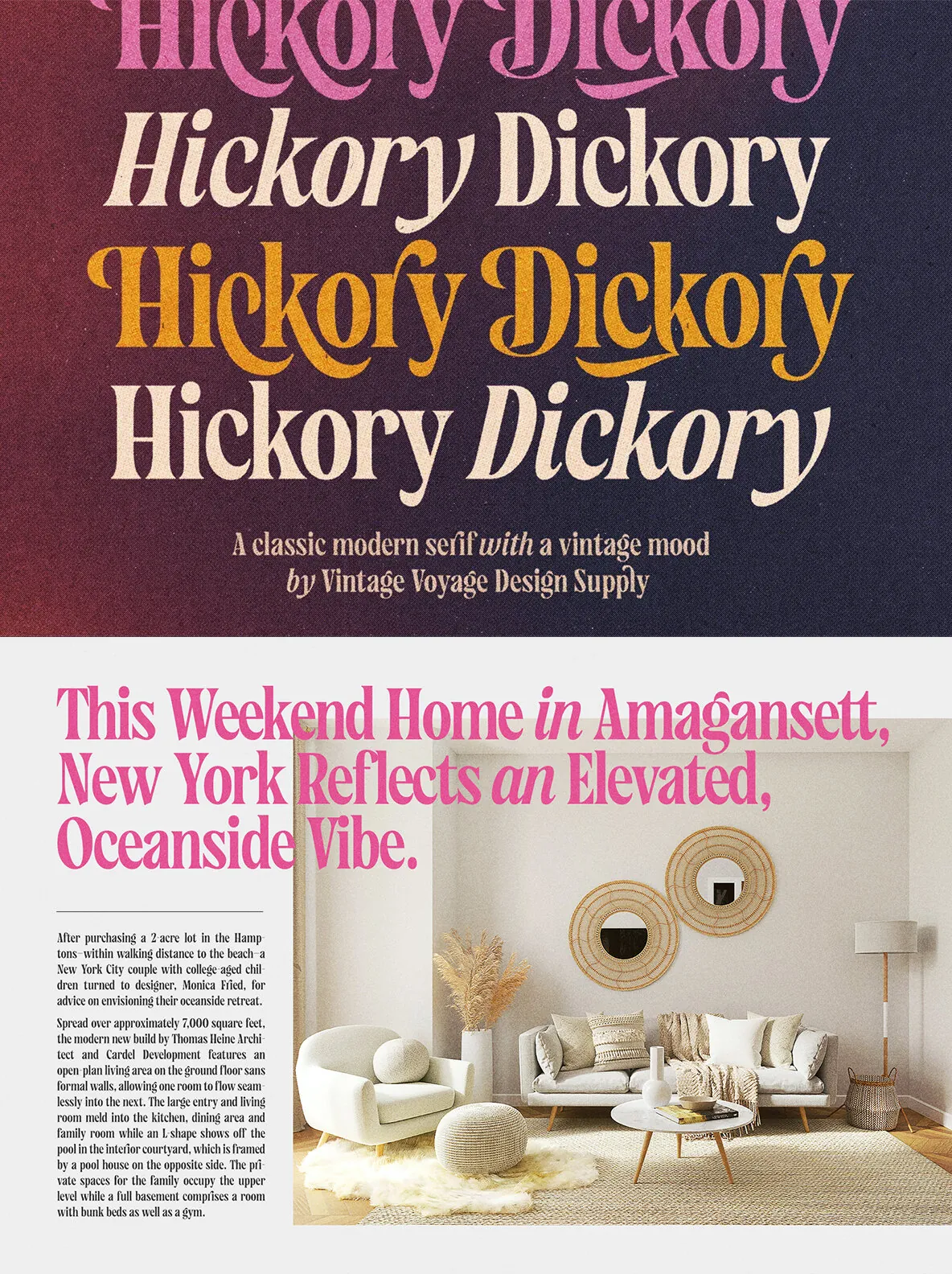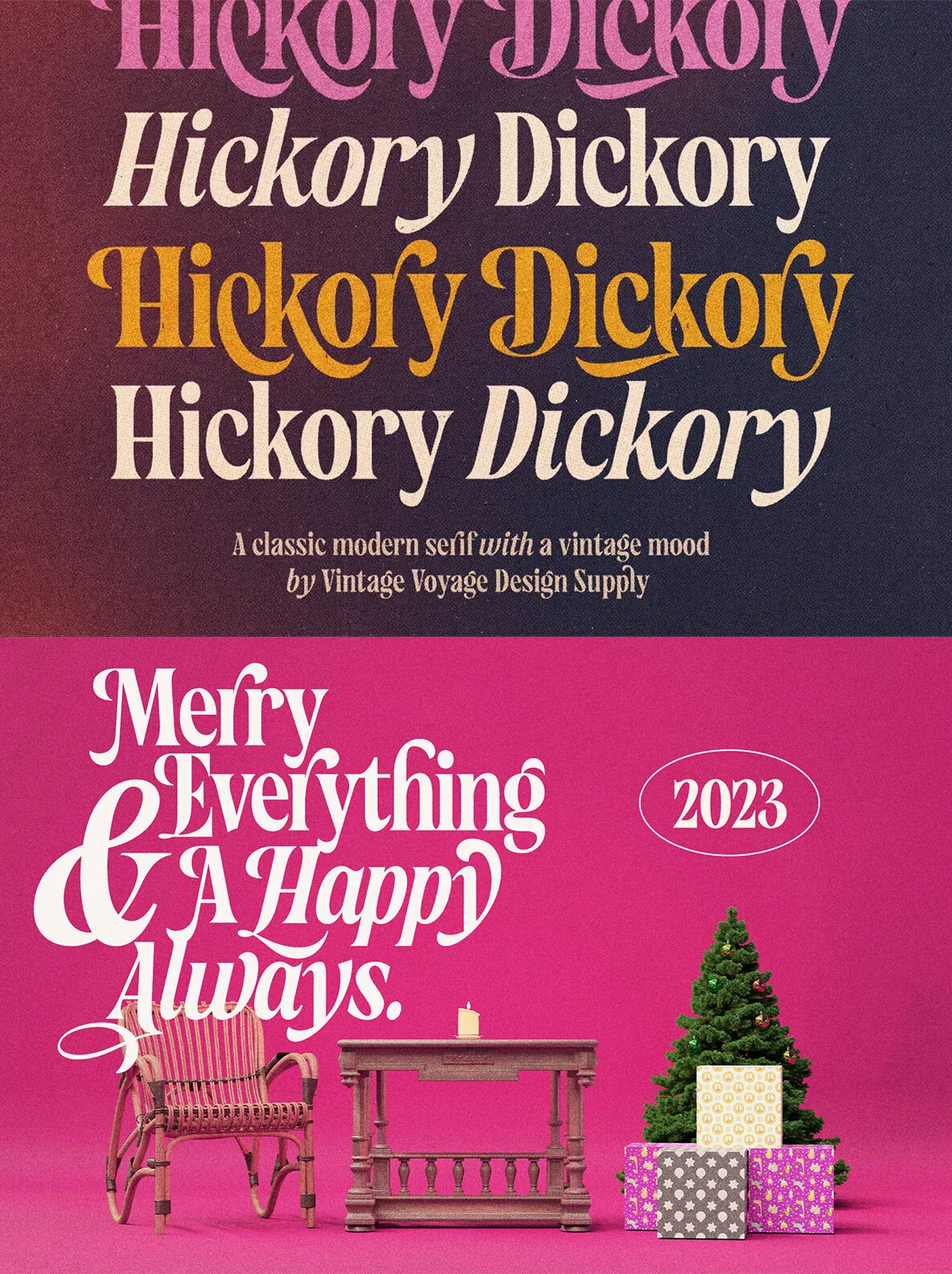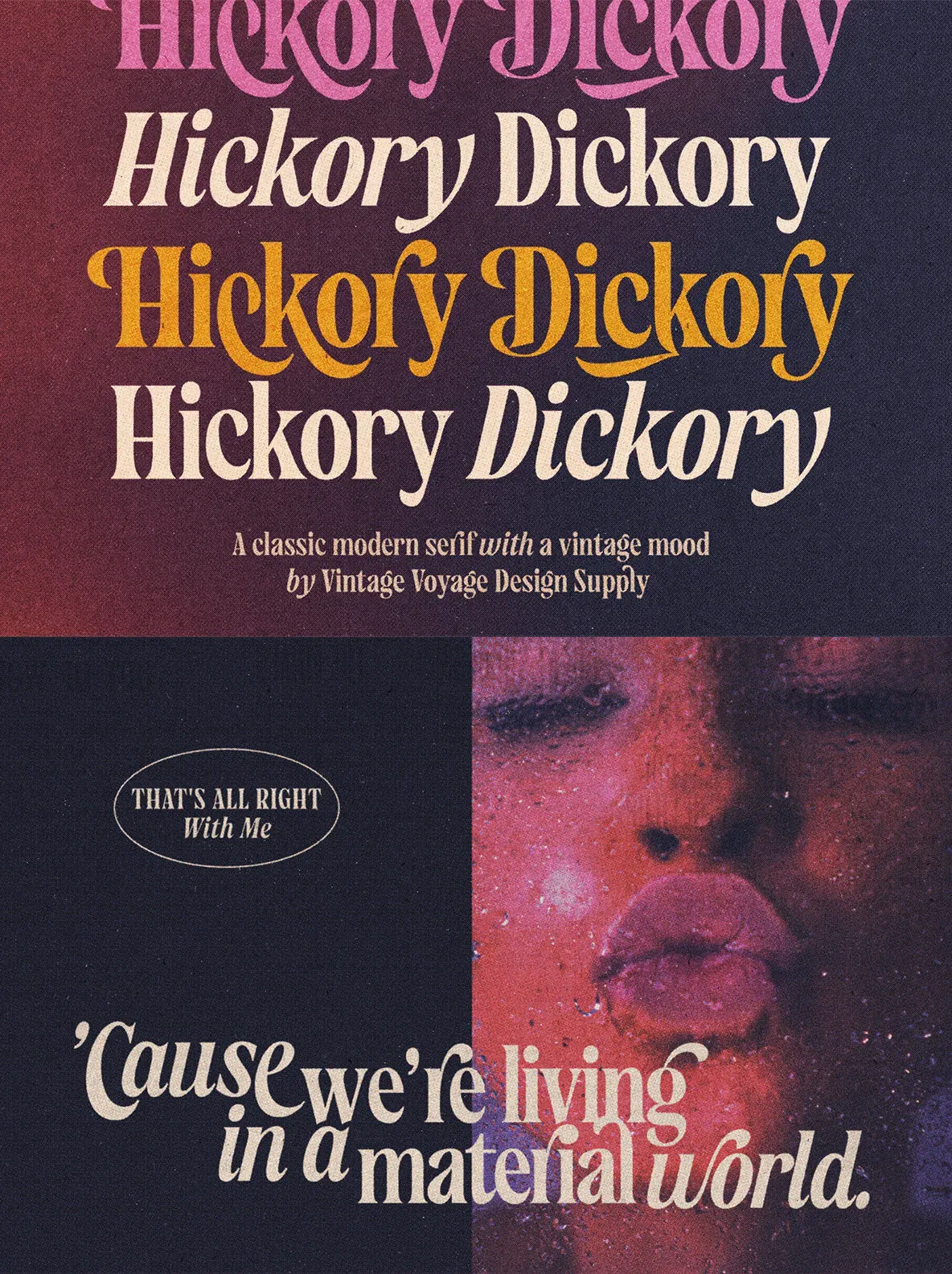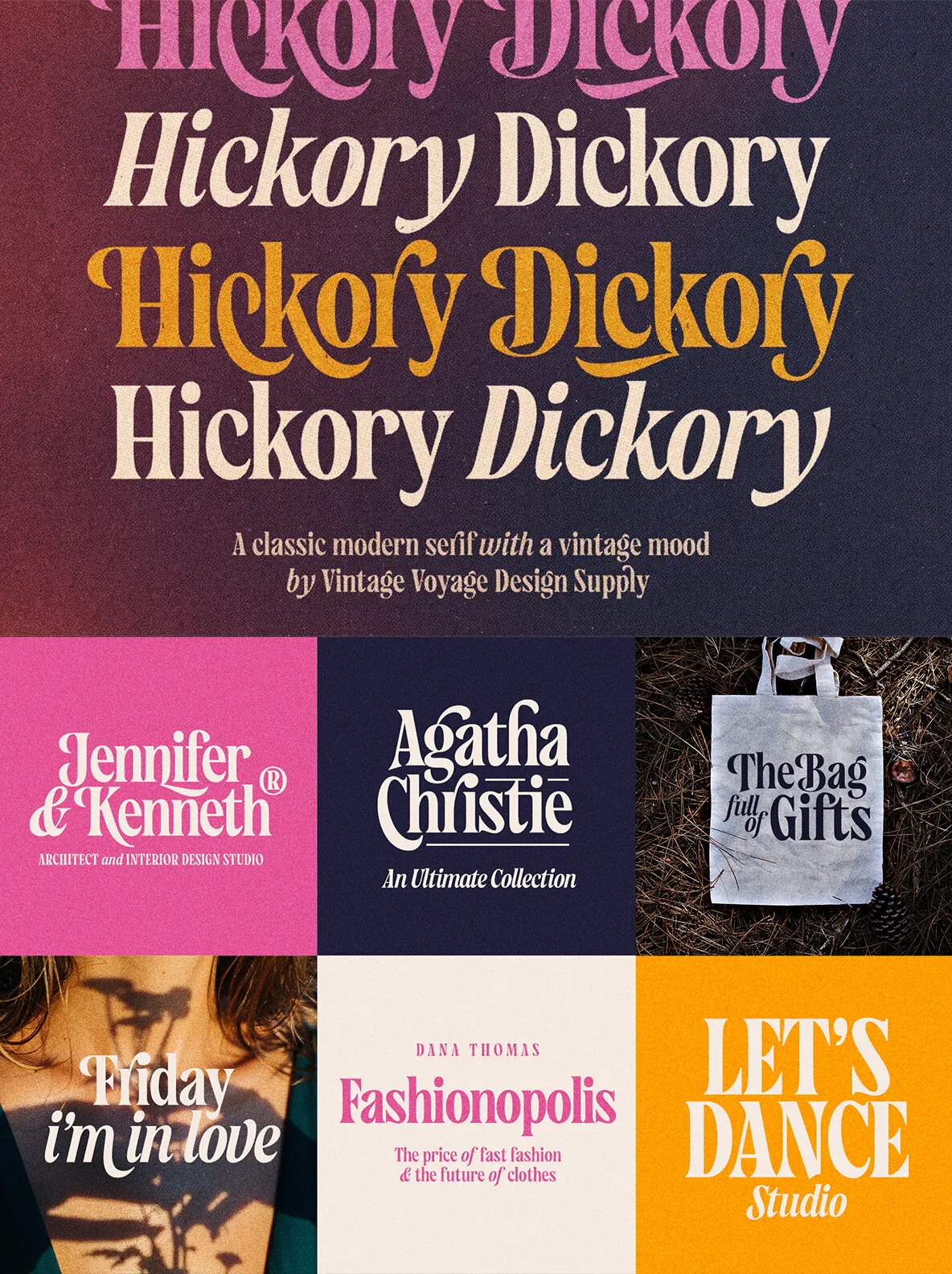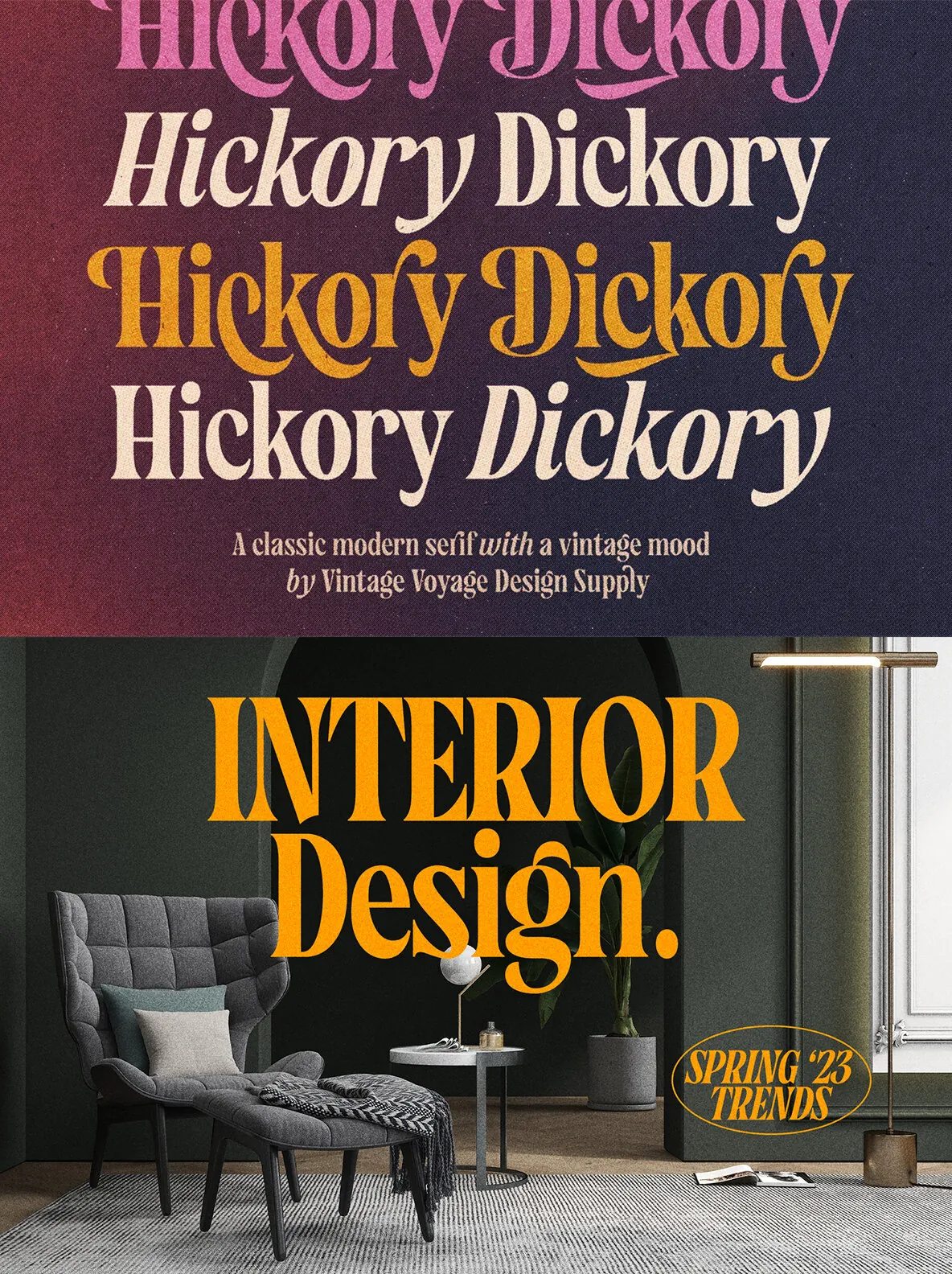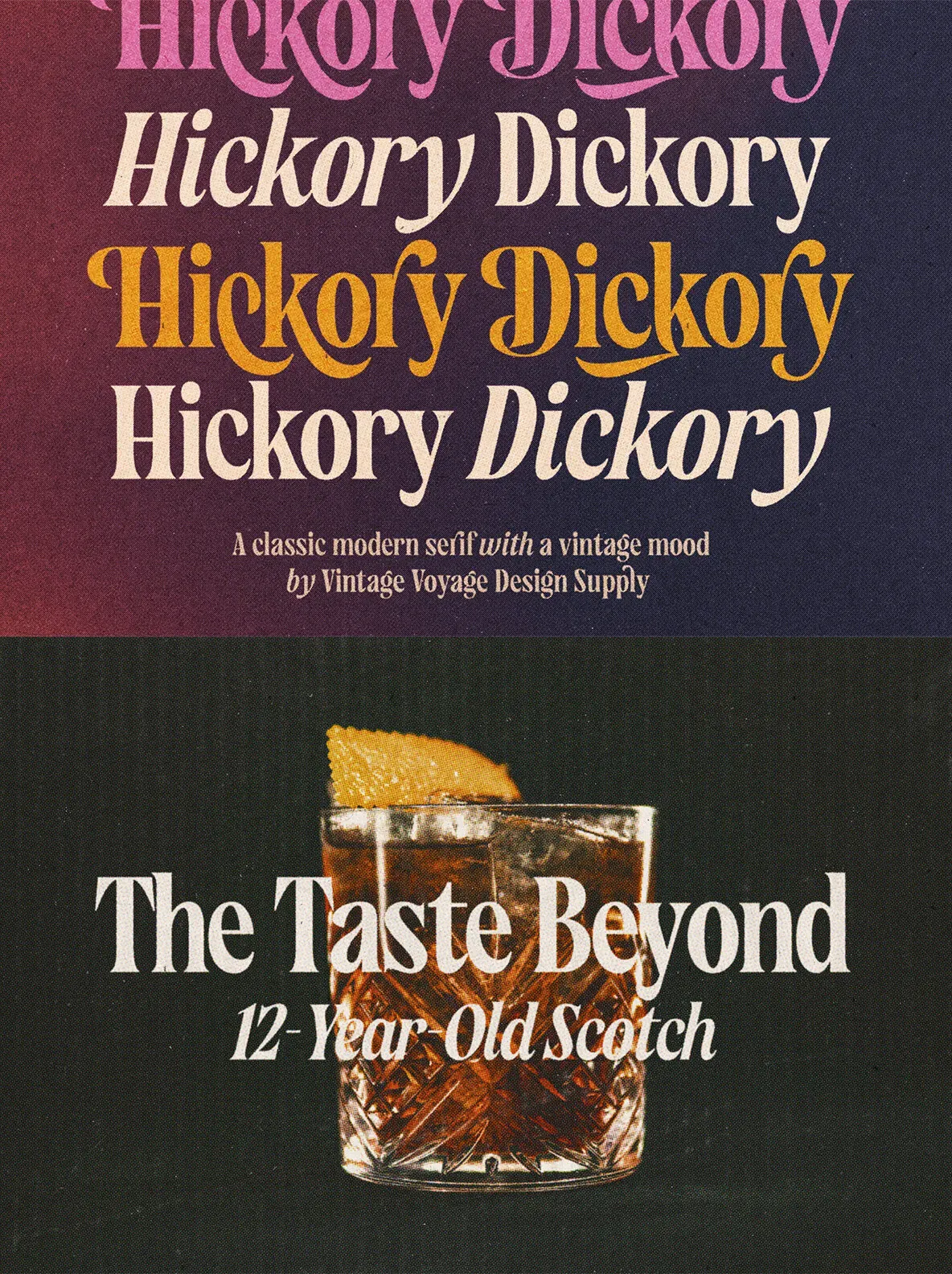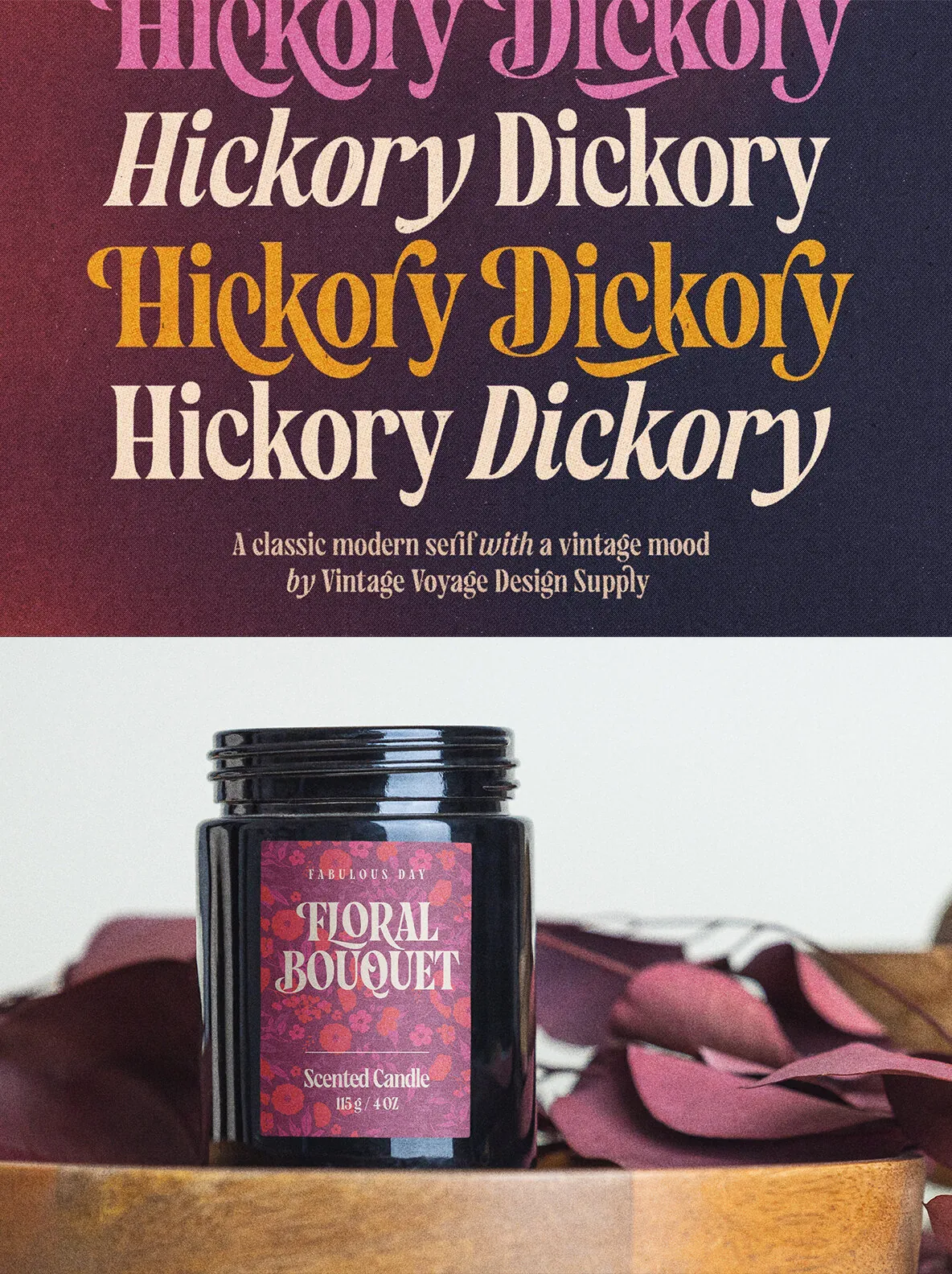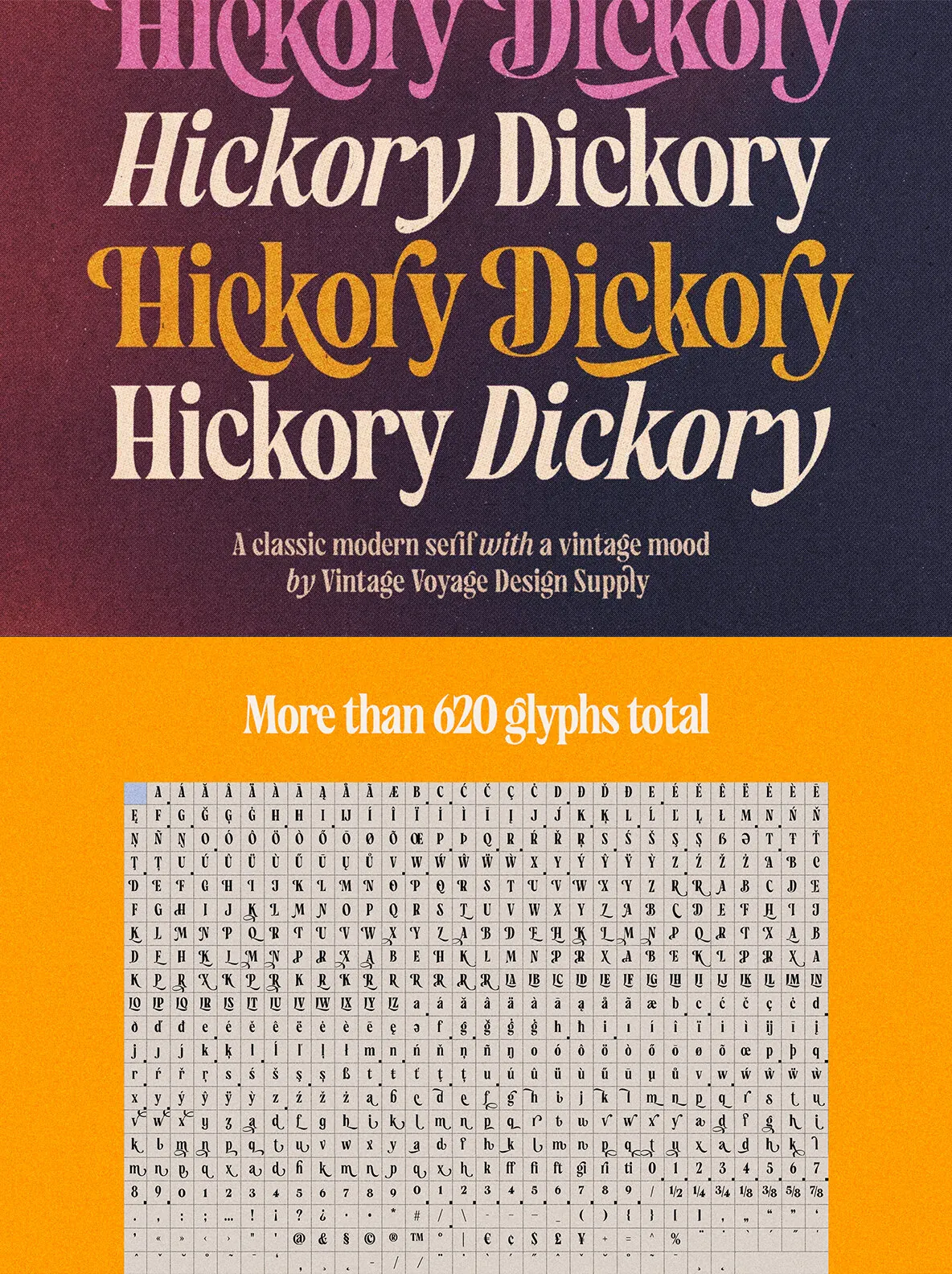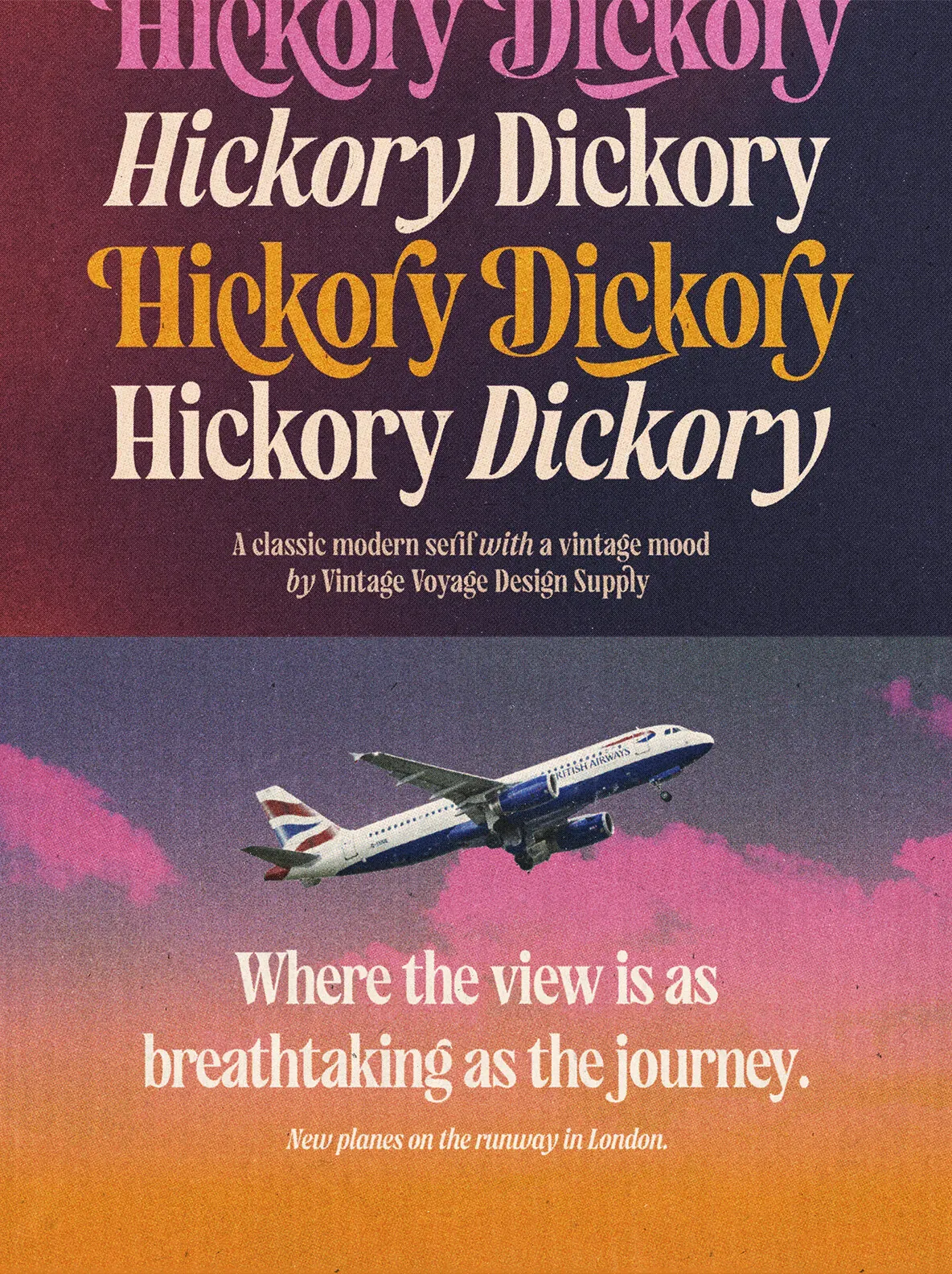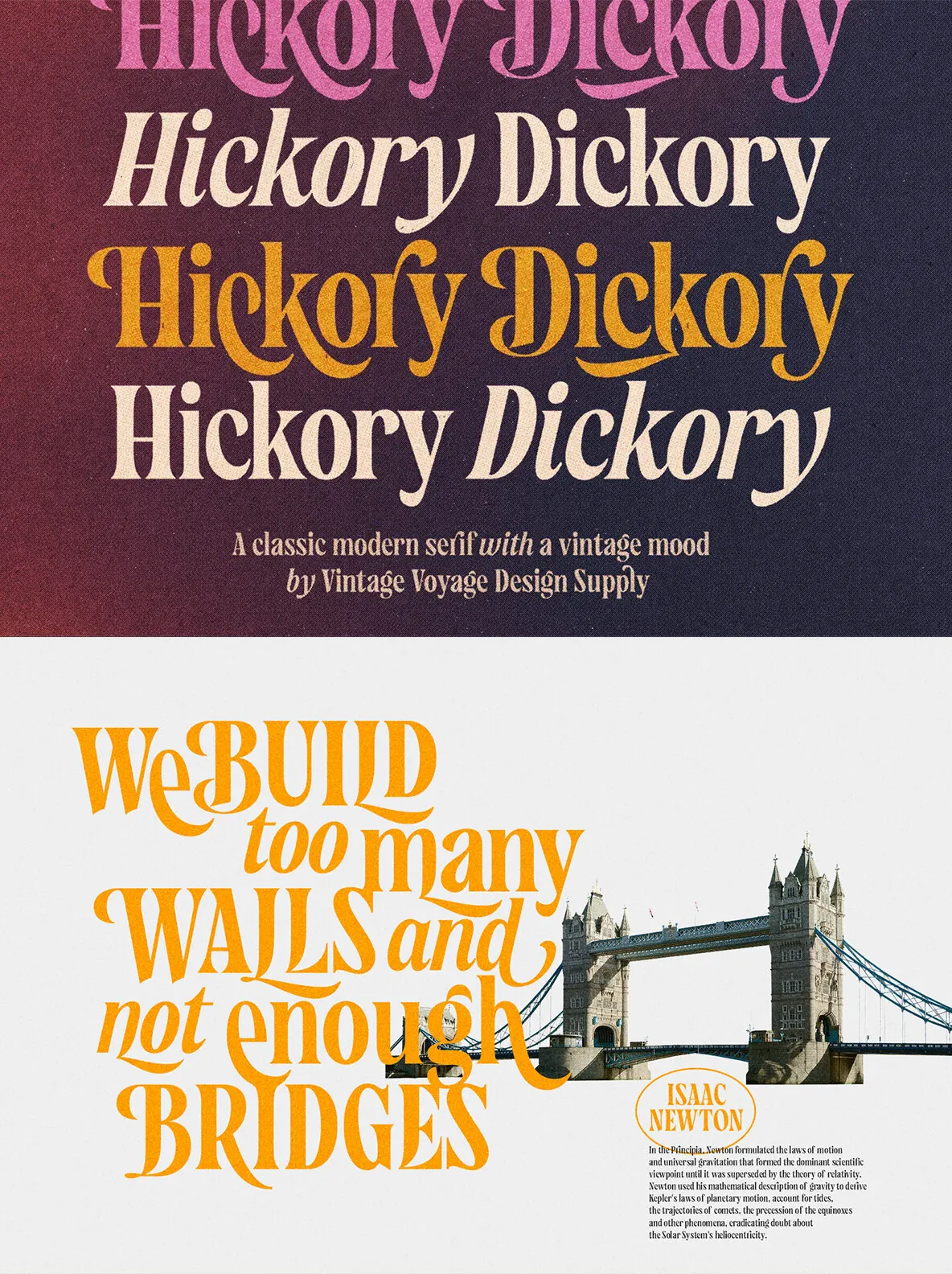
Hickory Dickory: Eighties-Inspired Serif Font
Hickory Dickory blends timeless elegance with a clear nod to the distinct style of the eighties. This serif font captures the era’s confident minimalism seen in vintage advertising and editorial layouts. Each letterform channels the balance and clarity that defined a new direction in photography and typography during that period.
Designed for standout headlines and refined branding, Hickory Dickory offers both nostalgia and versatility. Its clean lines and expressive curves work seamlessly across magazine layouts, posters, packaging, and digital platforms. Hickory Dickory brings the retro spirit to modern projects, appealing to designers who appreciate subtle historical references with a polished finish.